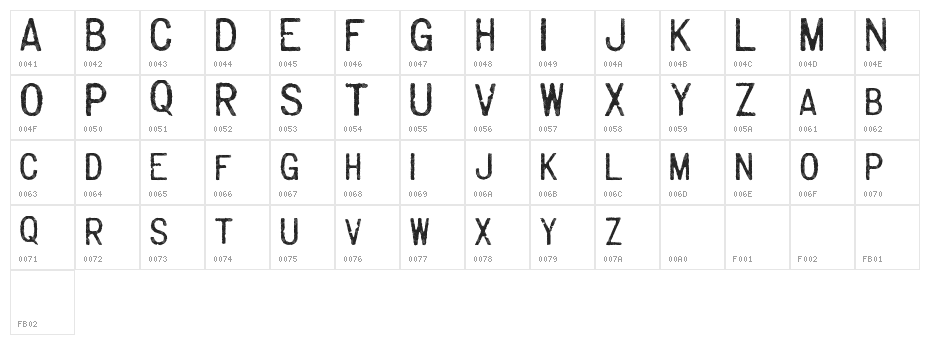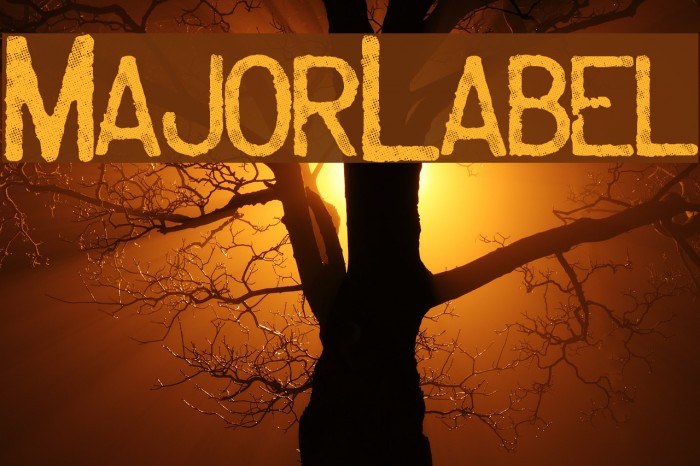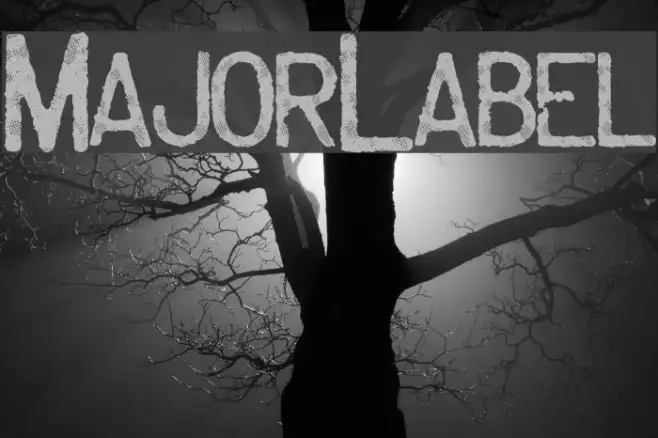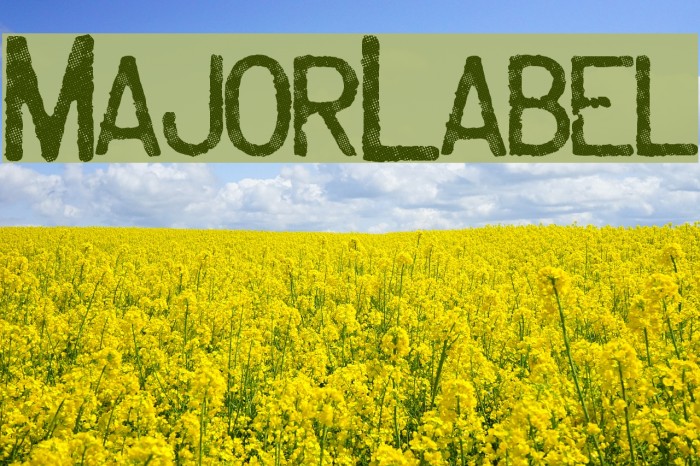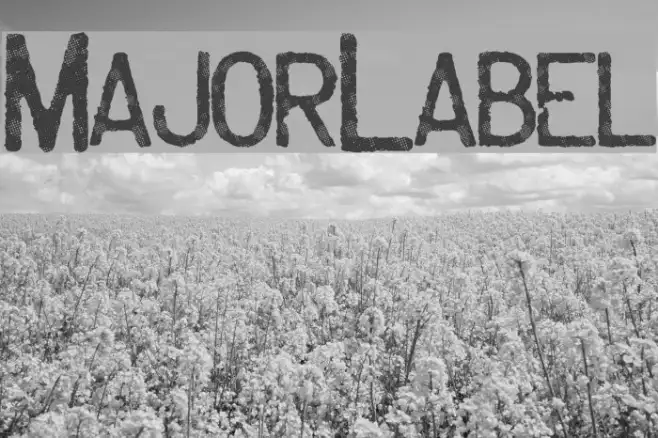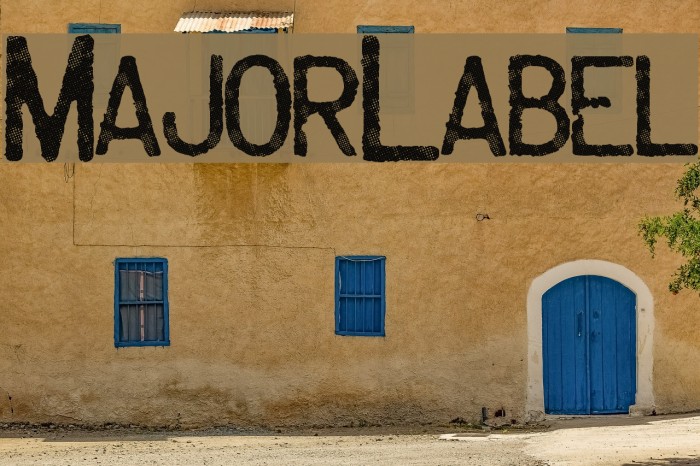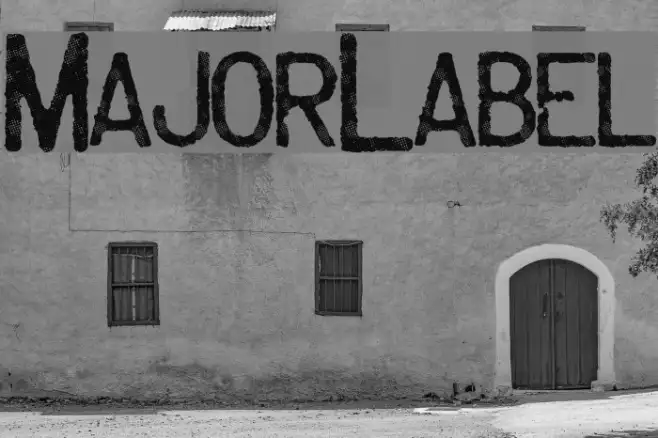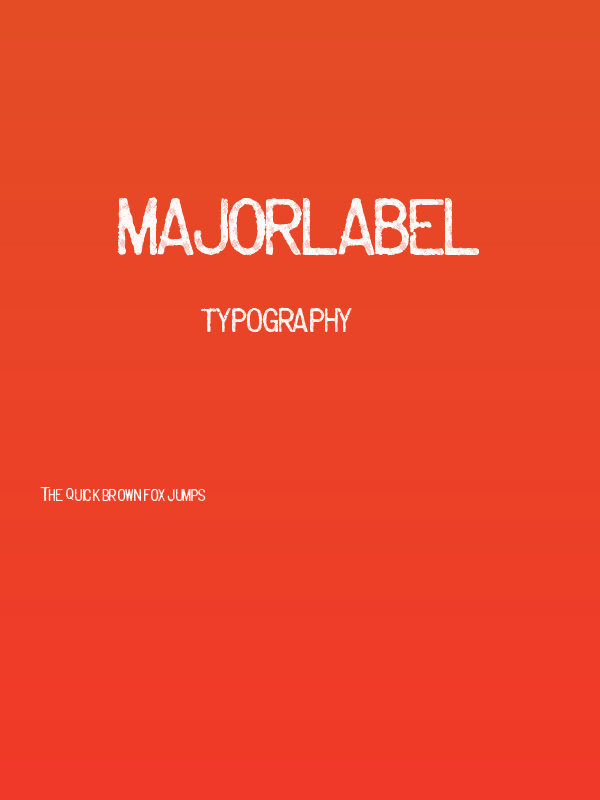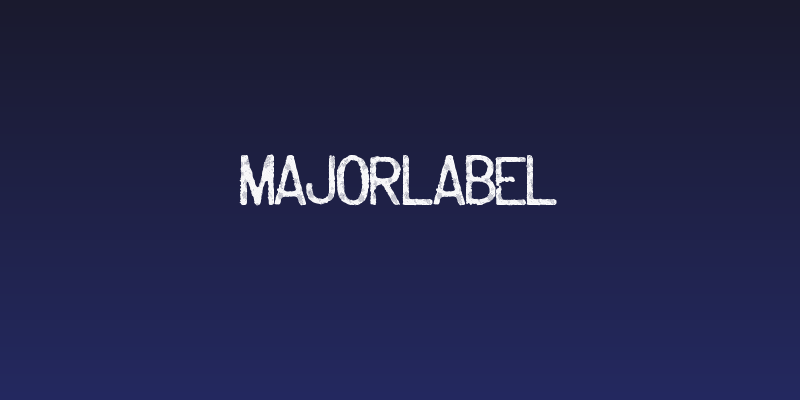
MajorLabel Font
MajorLabel Description
This font features a bold, distressed style with a textured appearance that mimics the look of worn or stamped lettering. The uppercase letters are uniform in height, with a slightly condensed width that gives a compact and impactful look. The texture adds a rugged, vintage feel, making it suitable for designs that require a strong, industrial aesthetic. The characters are well-defined, with consistent spacing that maintains readability despite the distressed effect. This font is ideal for projects that aim to convey a sense of authenticity and rawness.
| Proposed Projects | Ideal for branding, posters, album covers, and any design requiring a rugged, vintage look. |